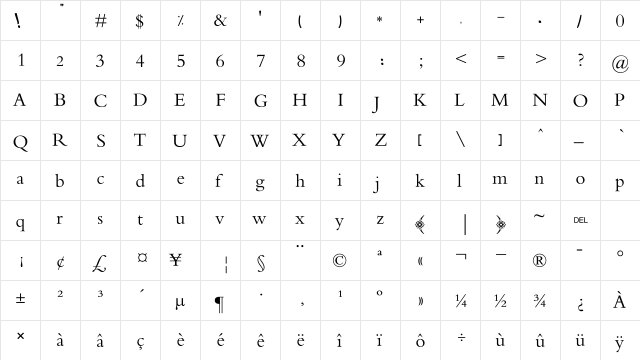
AF-Al Nassrah Regular
Design Context for AF-Al Nassrah Typeface
AF-Al Nassrah is a composed and adaptable typeface that performs quietly and consistently across a wide range of design contexts.
Pro Tip: Use AF-Al Nassrah in both headline and body roles to test its range before committing to a single application.